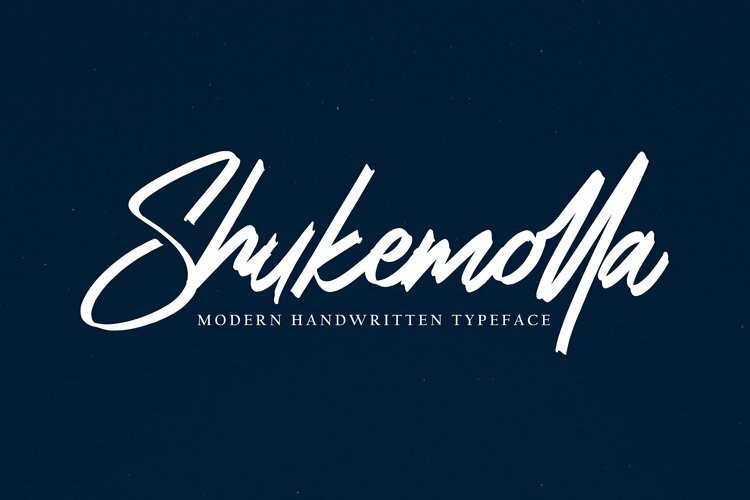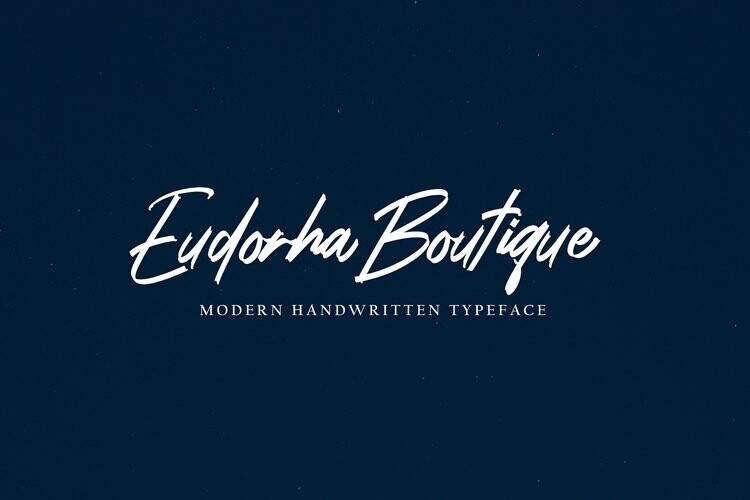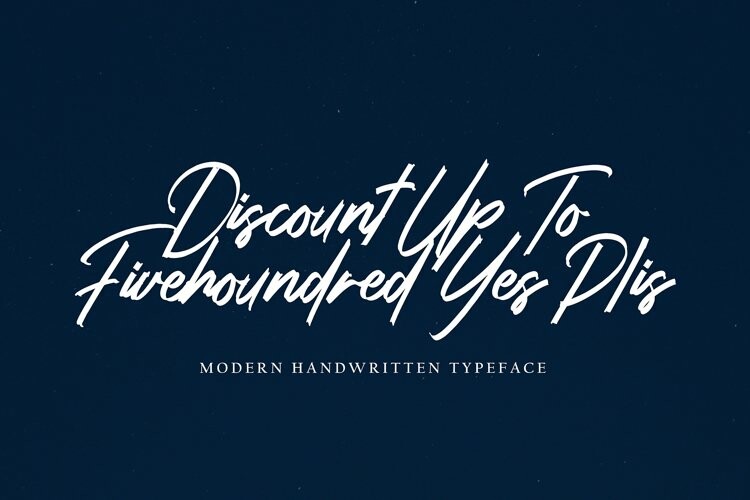
Shukemolla Font
Shukemolla FontShukemolla with new style, this font will perfect for many different project ex: quotes, logo, blog header, poster, banding, letter, invitation, stationery, etc…